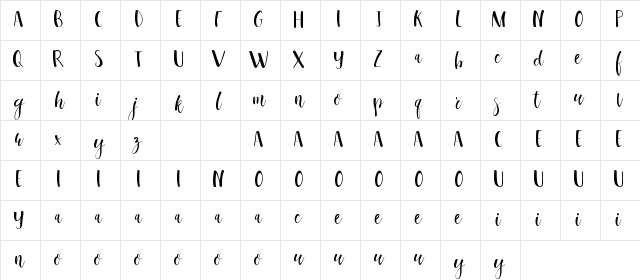
Oppy Sahra Demo Light Regular
Design Context for Oppy Sahra Demo Light Typeface
Oppy Sahra Demo Light is a composed and adaptable typeface that performs quietly and consistently across a wide range of design contexts. Its slender proportions lend an understated elegance to any composition.